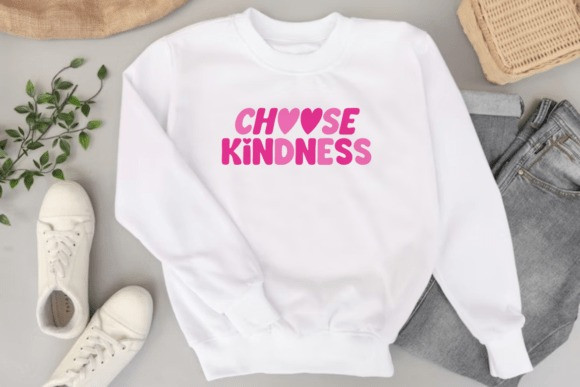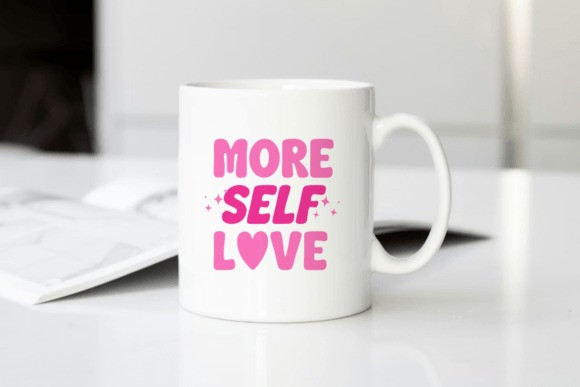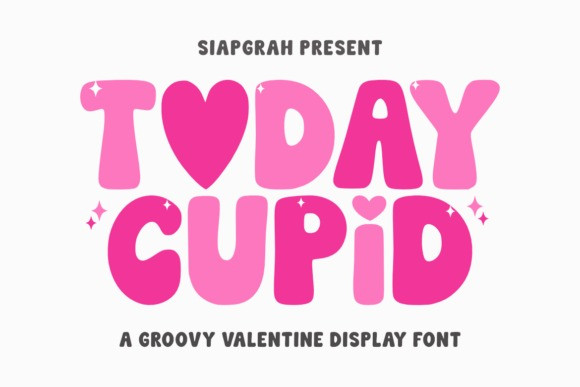
Today Cupid Font
Today Cupid Font is bursting with personality, featuring thick, rounded forms and adorable heart-themed accents that instantly warm the heart. It is a celebration of love and joy, designed to turn any project into a fun, visual experience.
The Today Cupid font is the ultimate choice for nursery decor, children’s apparel, and festive party supplies. Its “puffy” aesthetic and sparkling star details make it jump off the screen or page. Use the Today Cupid typeface to create eye-catching stickers, playful nursery prints, or vibrant social media content that demands a “like.”
To get the most out of this font, experiment with layered colors or 3D effects to emphasize its soft, cloud-like volume. It pairs wonderfully with simple, thin mono-line fonts to keep the focus on the decorative headlines. Whether you’re designing for a baby shower or a candy-colored brand, this font delivers pure happiness.